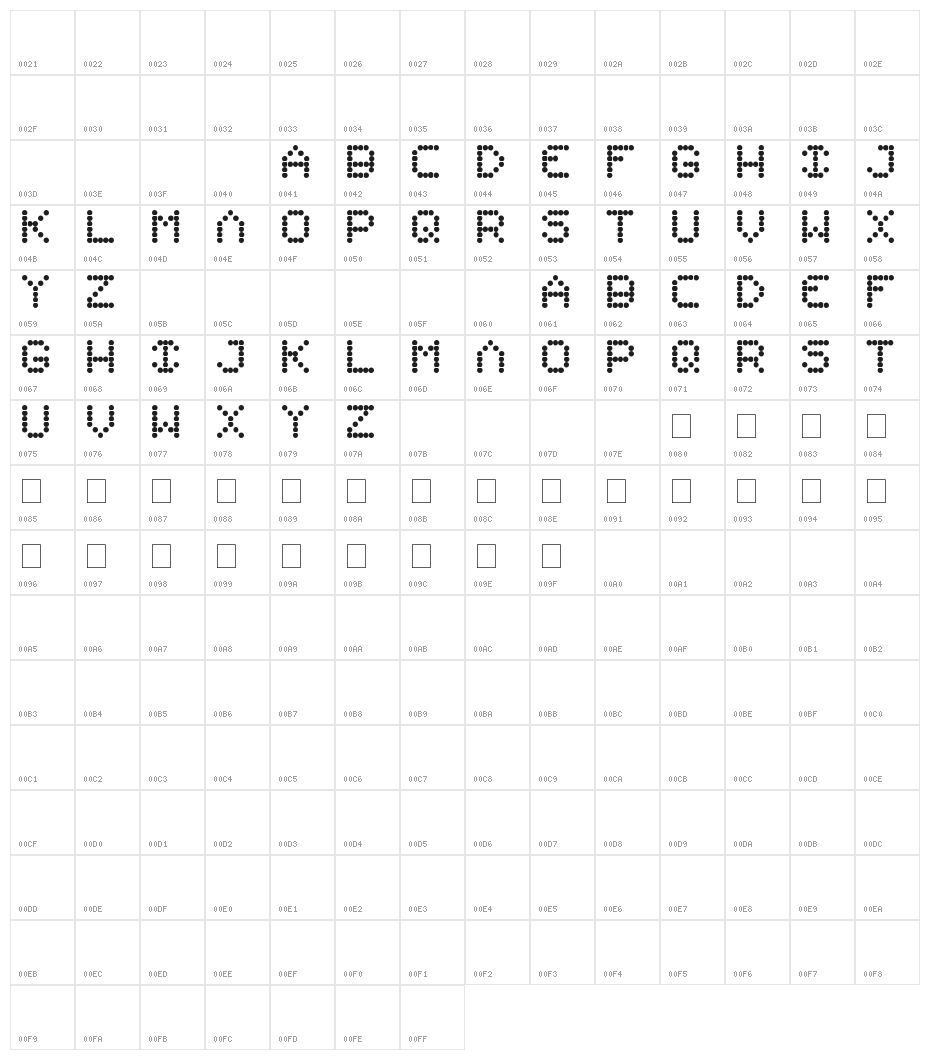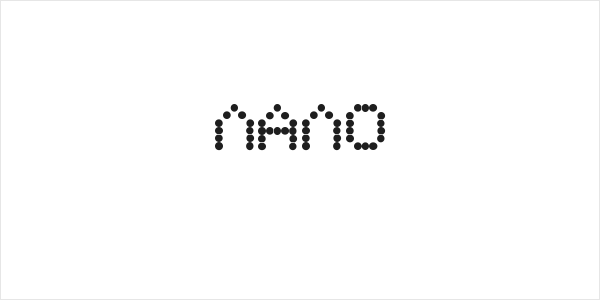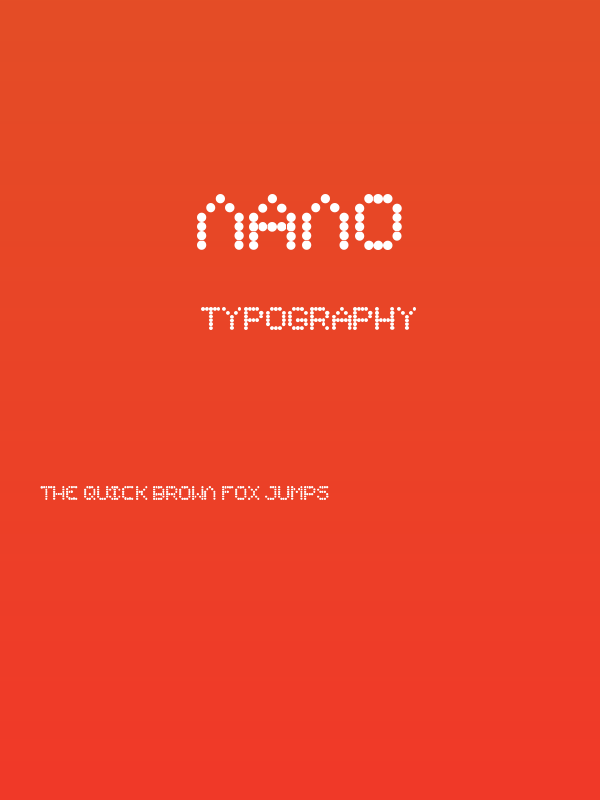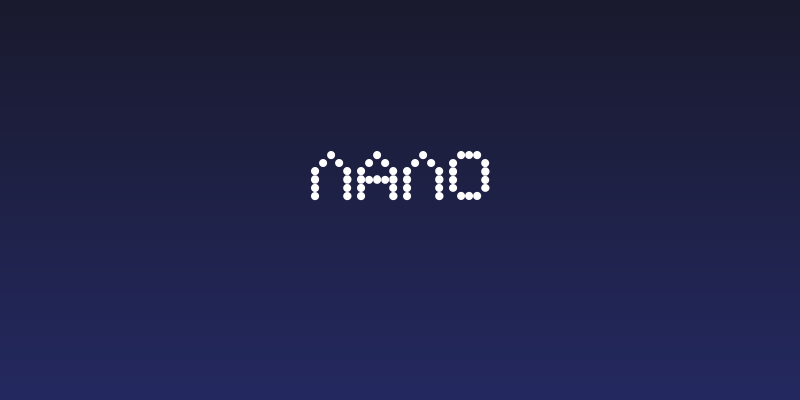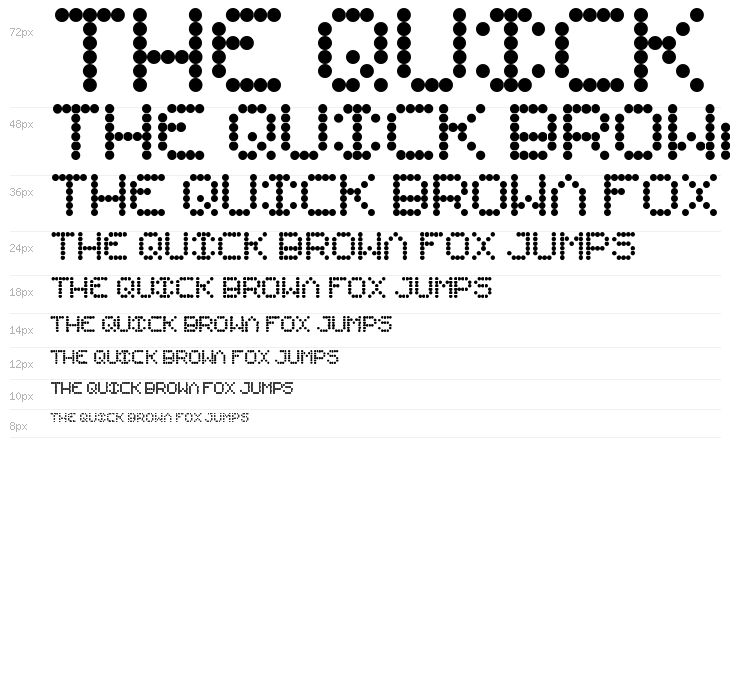
nano Font
| Anwendungsfall | Logos, Headlines, Digital displays |
| Vorgeschlagene Projekte | Ideal for digital displays, tech-themed designs, modern art projects, and creative branding. |